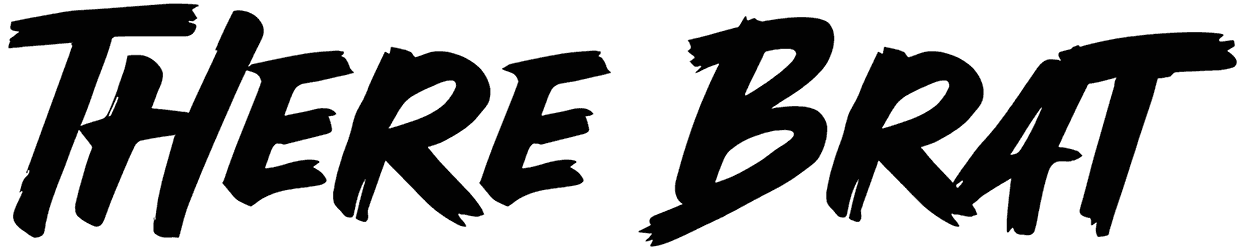
There Brat Font
Offer a realistic look to your design with There Brat, a modern brush font that is well-crafted to enhance any project beyond compare. While two types of uppercase letters are supported, there is no lowercase character or also number 0. This 80s font can be used for movie posters, book covers, video games, social media posts, and T-shirt prints.